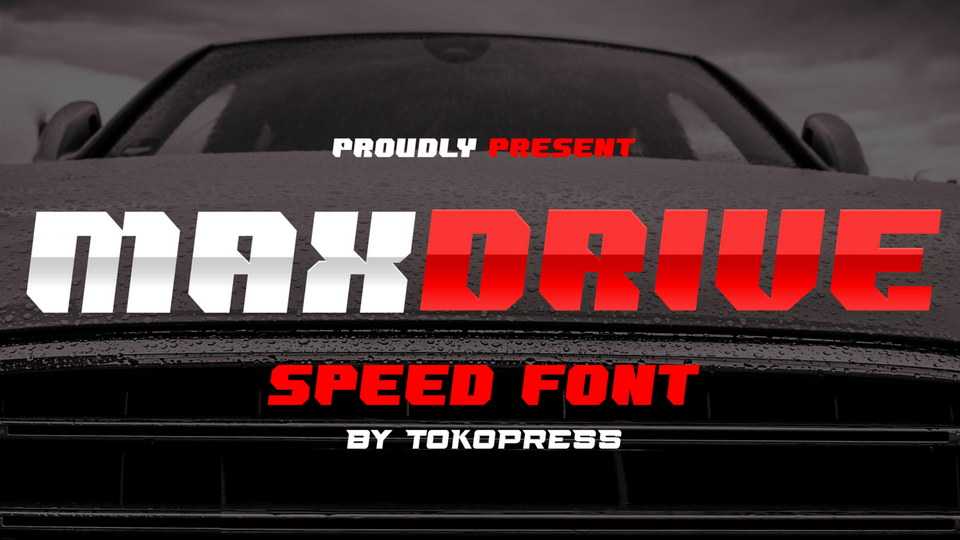
Download Maxdrive font, a racing gaming typeface. Maxdrive speaks speed, racing, and roaring machine with the highest RPM you can get on the asphalt.